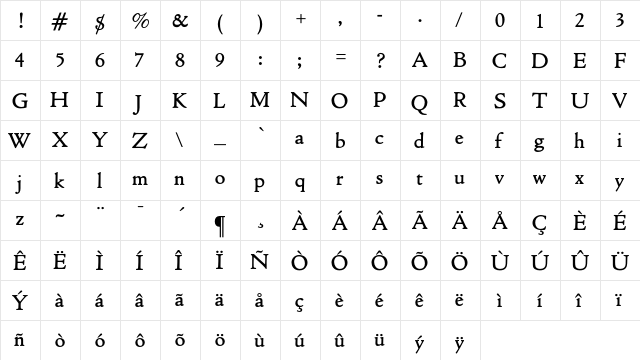
Cloister OldstyleRoman
Design Context for Cloister Typeface
Cloister carries the refined structure of traditional serif typography, with bracketed terminals and considered proportions that communicate credibility and craft.
Pro Tip: Use Cloister for editorial body copy and considered headline work. Pair with a neutral sans for UI elements or captions to create a classic hierarchy.